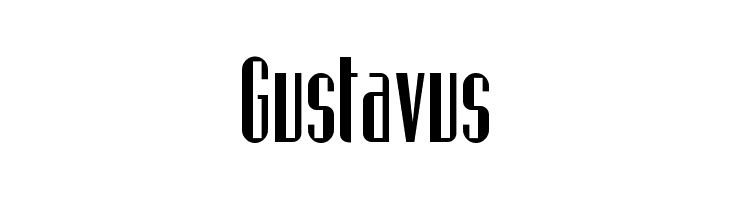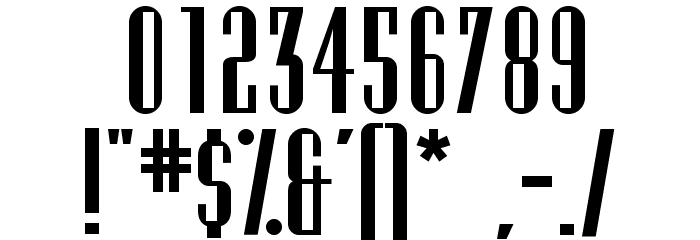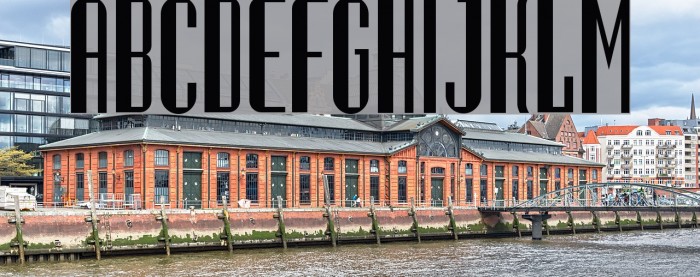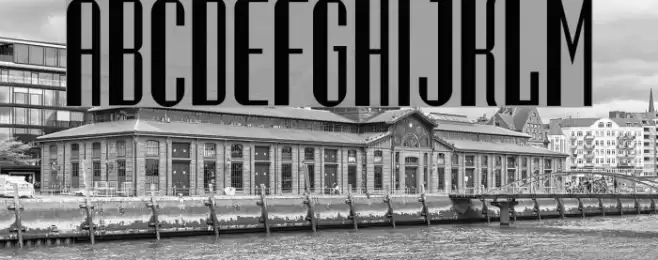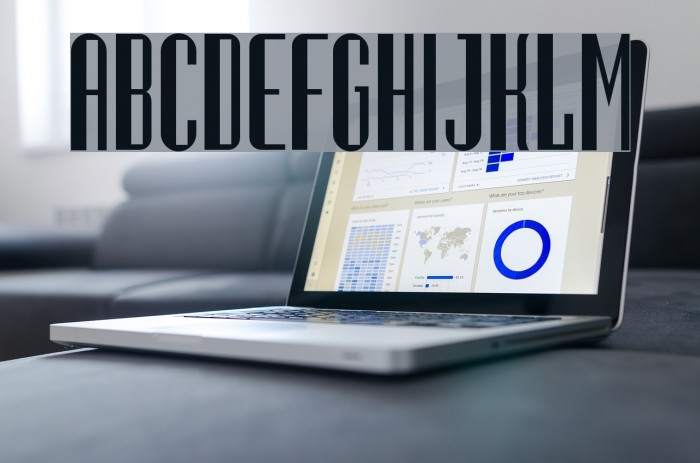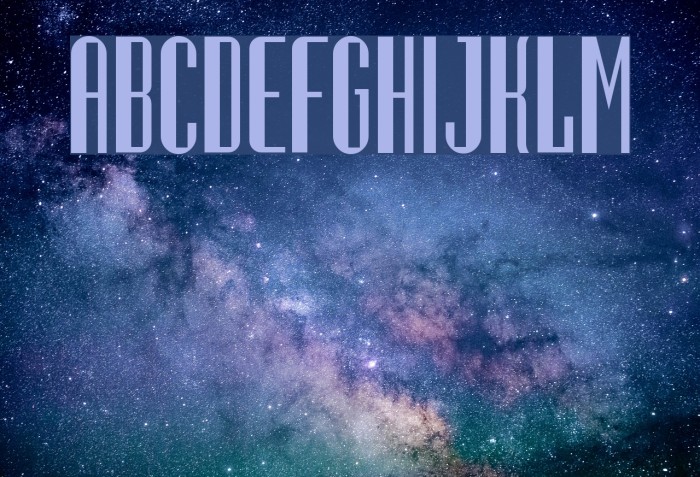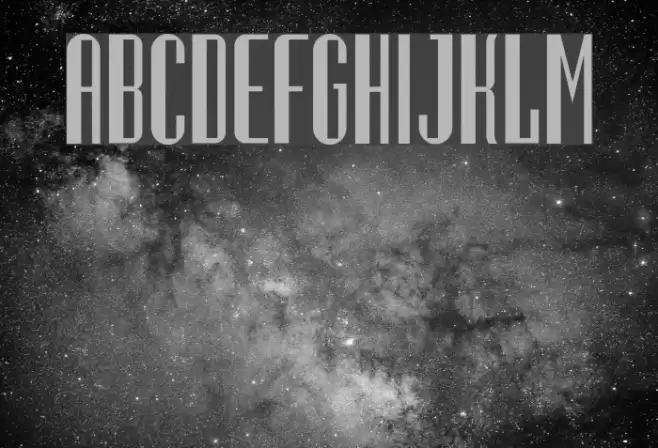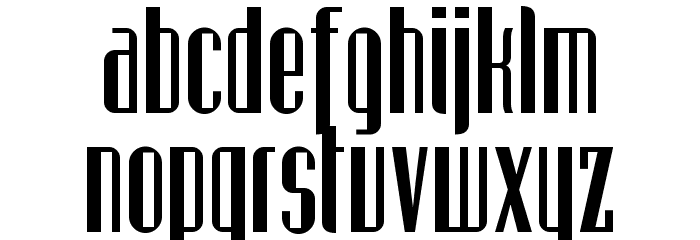
Gustavus Font
Gustavus Description
This font features a bold, elongated design with a modern and sleek appearance. The characters are tall and narrow, giving a condensed look that is both striking and elegant. The uppercase letters are particularly elongated, while the lowercase letters maintain a consistent height, contributing to a uniform and cohesive style. The numbers are similarly designed, with a strong vertical emphasis. The special characters are integrated seamlessly, maintaining the overall aesthetic. This font's high contrast between thick and thin strokes adds to its dramatic and impactful presence.